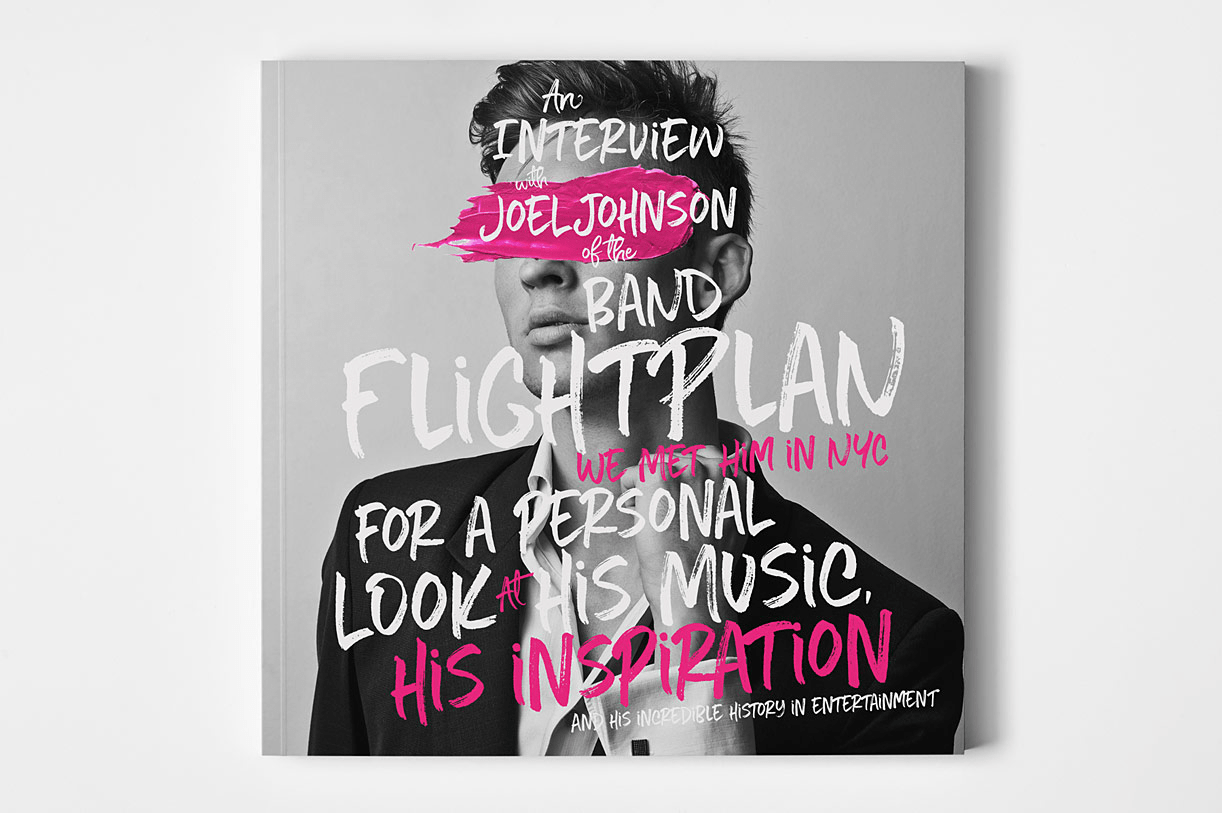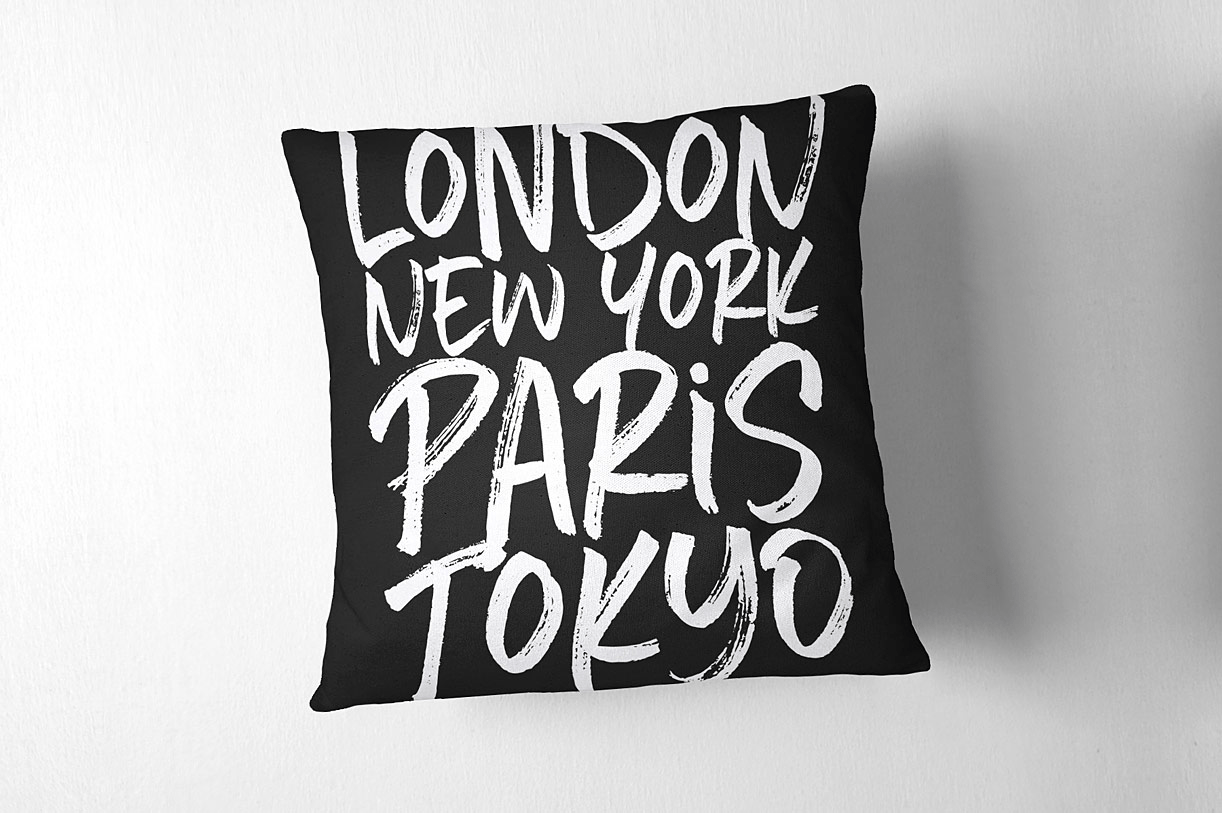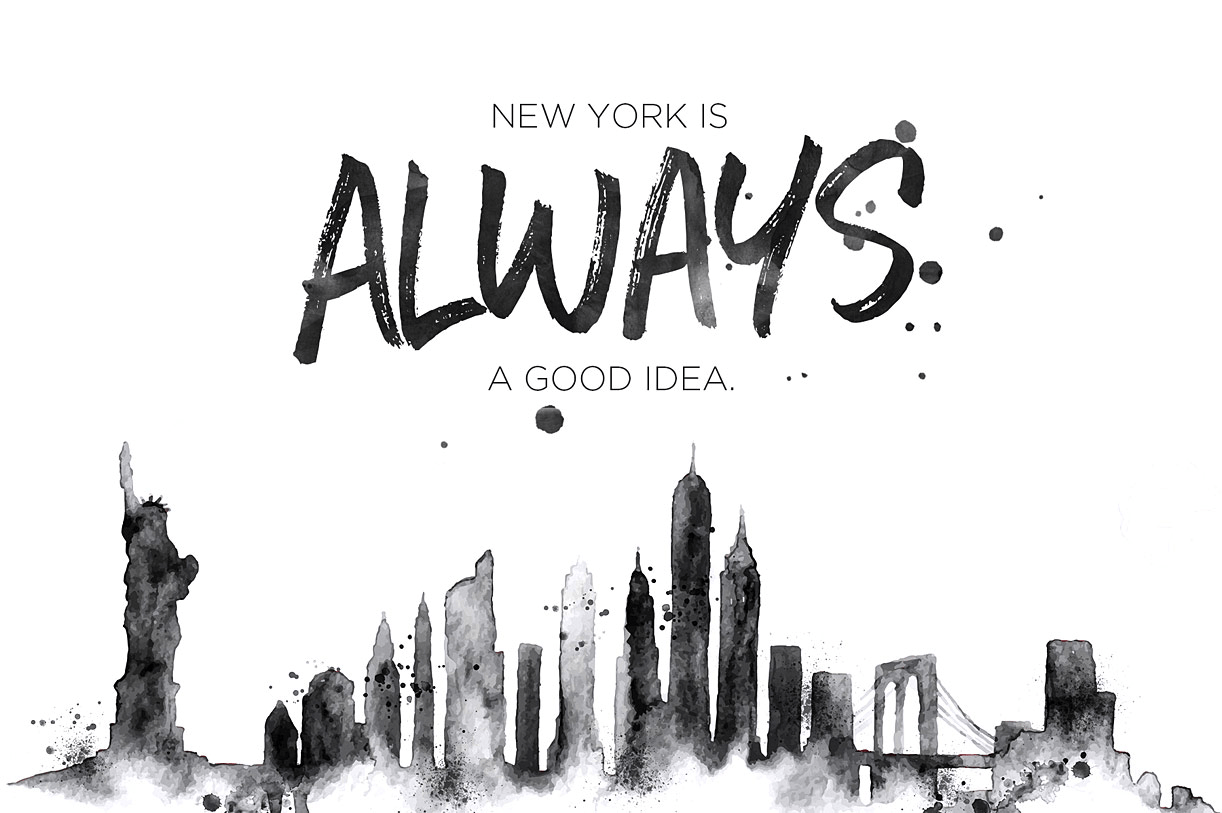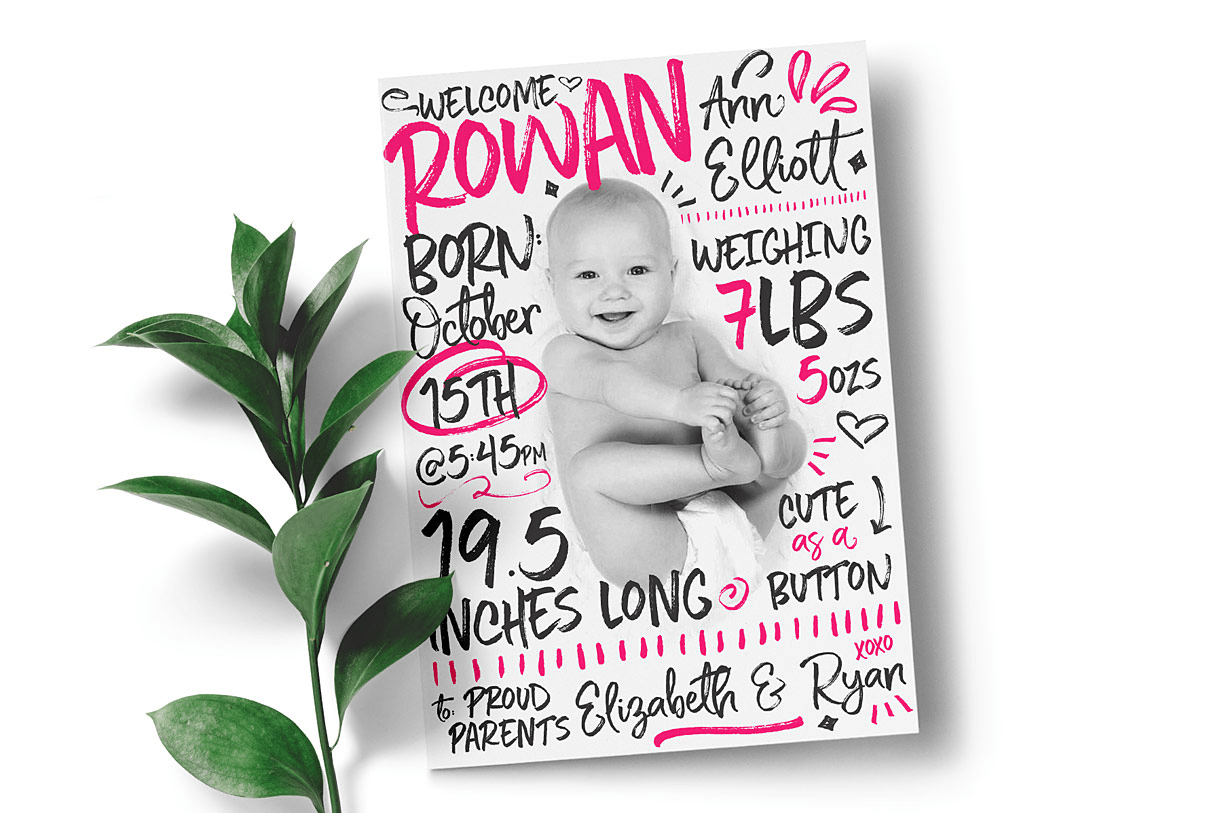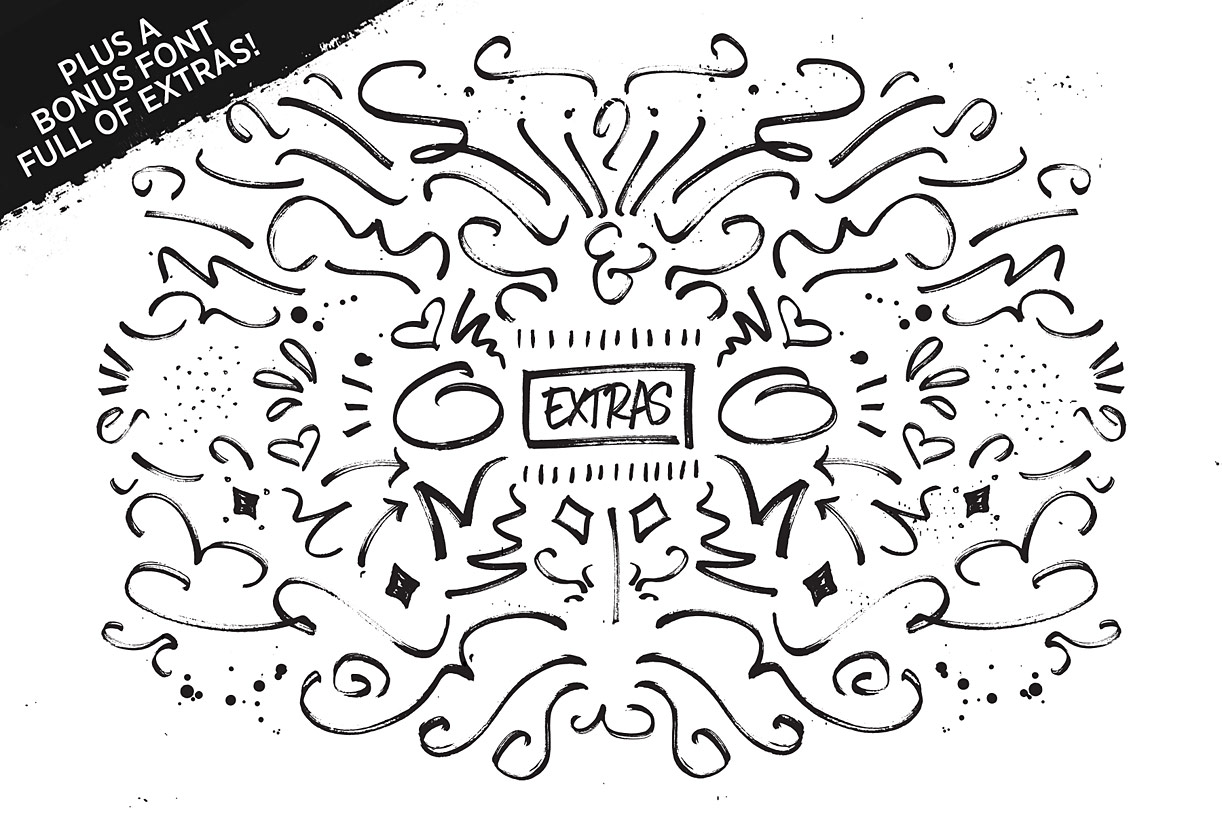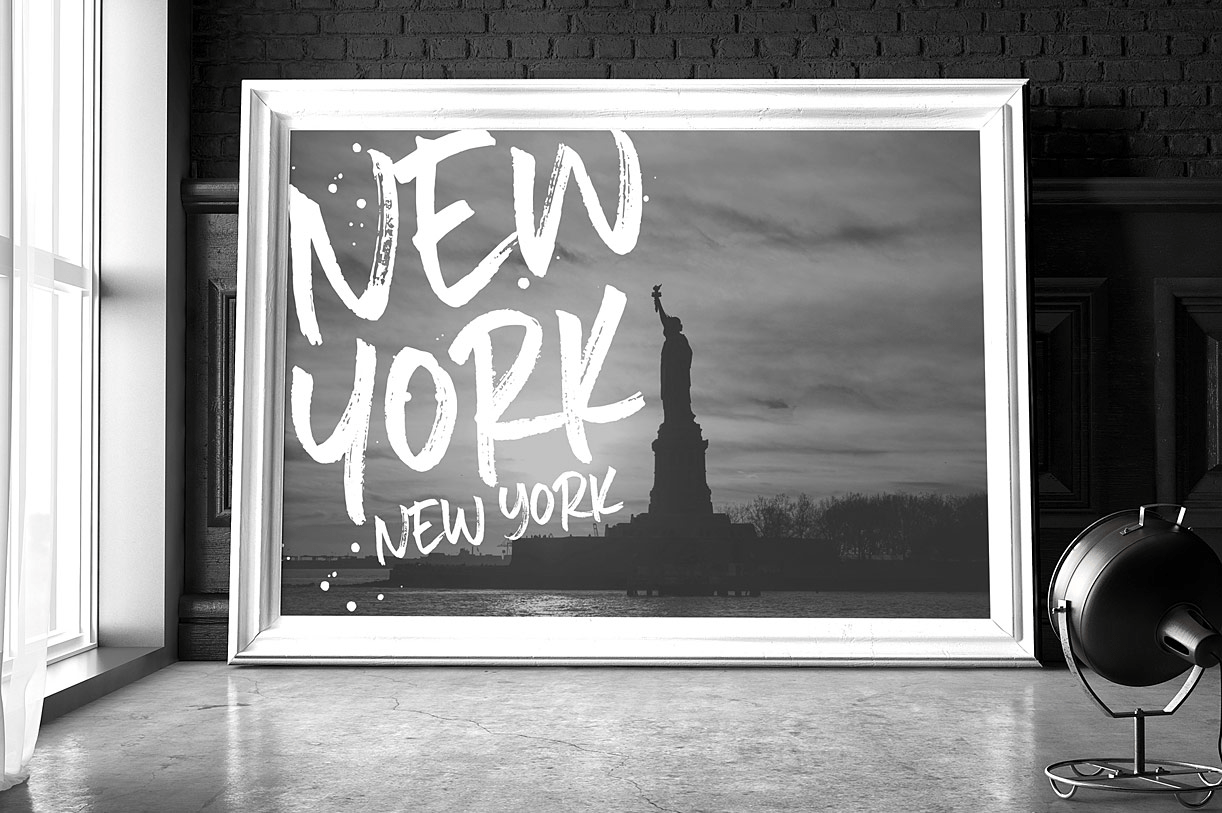
Five Boroughs
Font Family by Callie Rian & Co
Meet Five Boroughs! A delightfully playful follow up to the best-selling, Manhattan Darling!
In honor of New York's Five Boroughs, this font set was designed to be reminiscent of the Big Apple: gritty and smooth; ragged yet soft; rough, beautiful and versatile.
The fonts can be used together for a unique typography duo, but also work beautifully on their own. Five Boroughs looks amazing on branding, apparel design, editorials, posters, logos, greeting cards, bags, books, mugs and more!